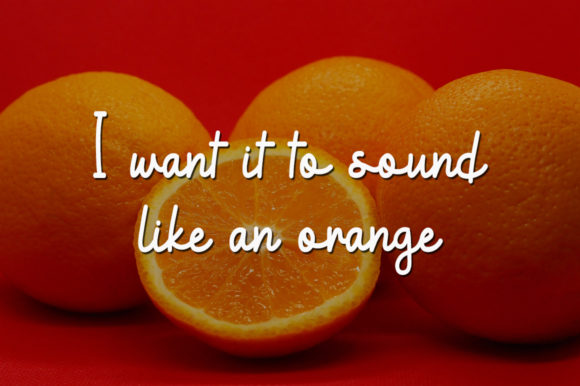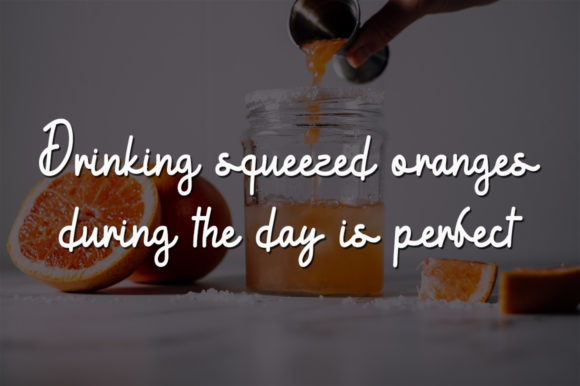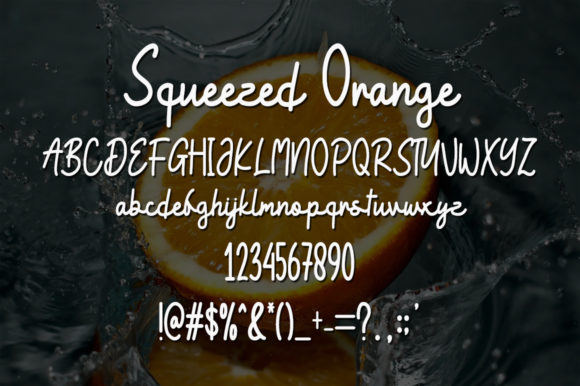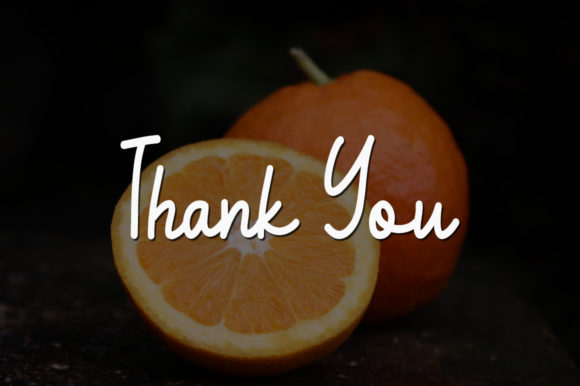
Squeezed Orange Font
About Squeezed Orange Font
Squeezed Orange is a sweet and delicate handwritten font. Its distinct and well rounded letters make this font a masterpiece. Fall in love with its incredibly versatile style and use it to create spectacular designs!